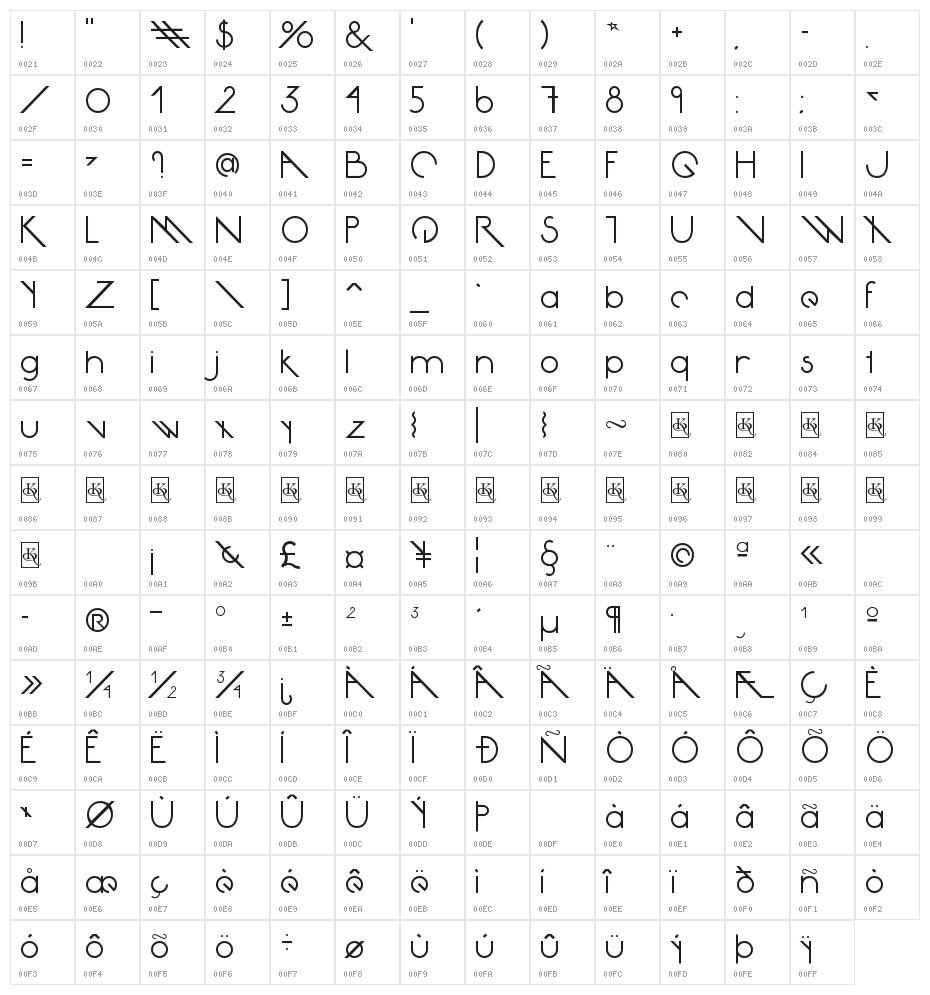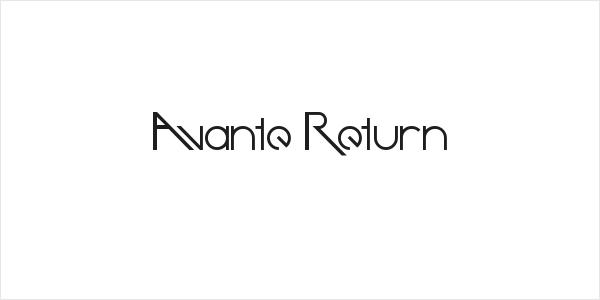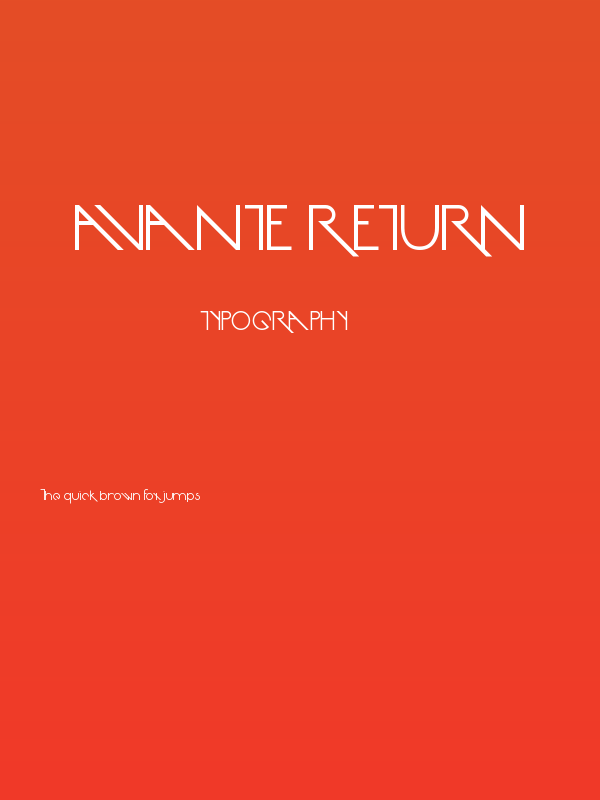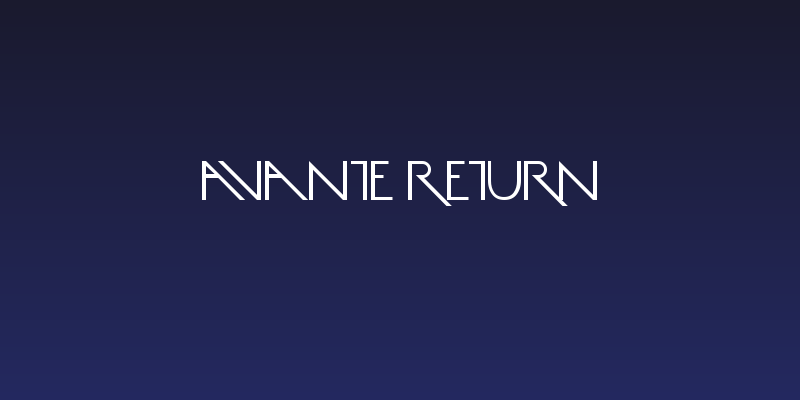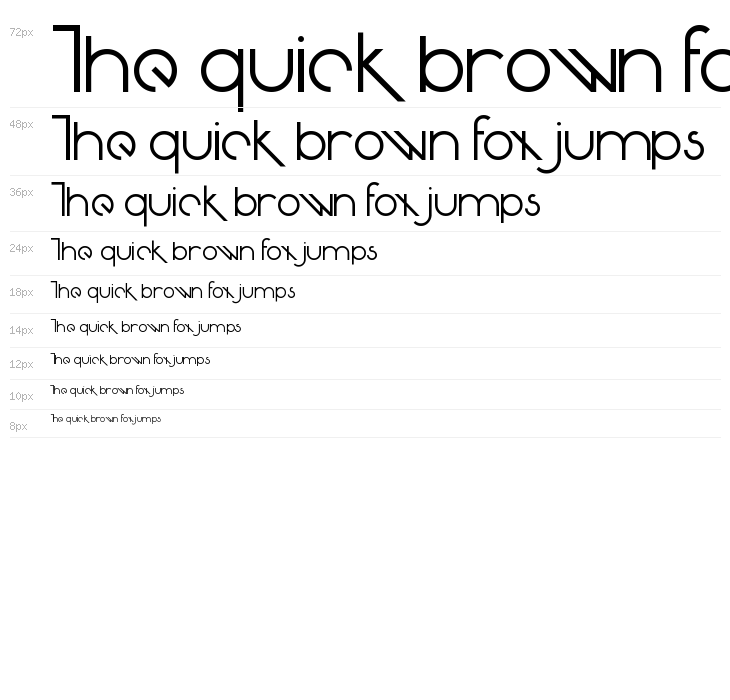
Avante Return Font
Avante Return Description
This font features a modern and geometric design with clean lines and a futuristic aesthetic. The uppercase letters are characterized by their angular shapes and unique cutouts, giving them a distinct and avant-garde appearance. The lowercase letters maintain a similar geometric style, with rounded forms that contrast with the sharpness of the uppercase. The numerals are consistent with the overall design, offering a sleek and contemporary look. Special characters are integrated seamlessly, enhancing the font's versatility. This typeface is ideal for projects that require a bold and innovative visual impact.
Overall StyleFuturistic and geometric
Use CaseHeadlines, Logos, Branding
Proposed ProjectsIdeal for branding, advertising, posters, and digital media that require a contemporary and striking visual identity.